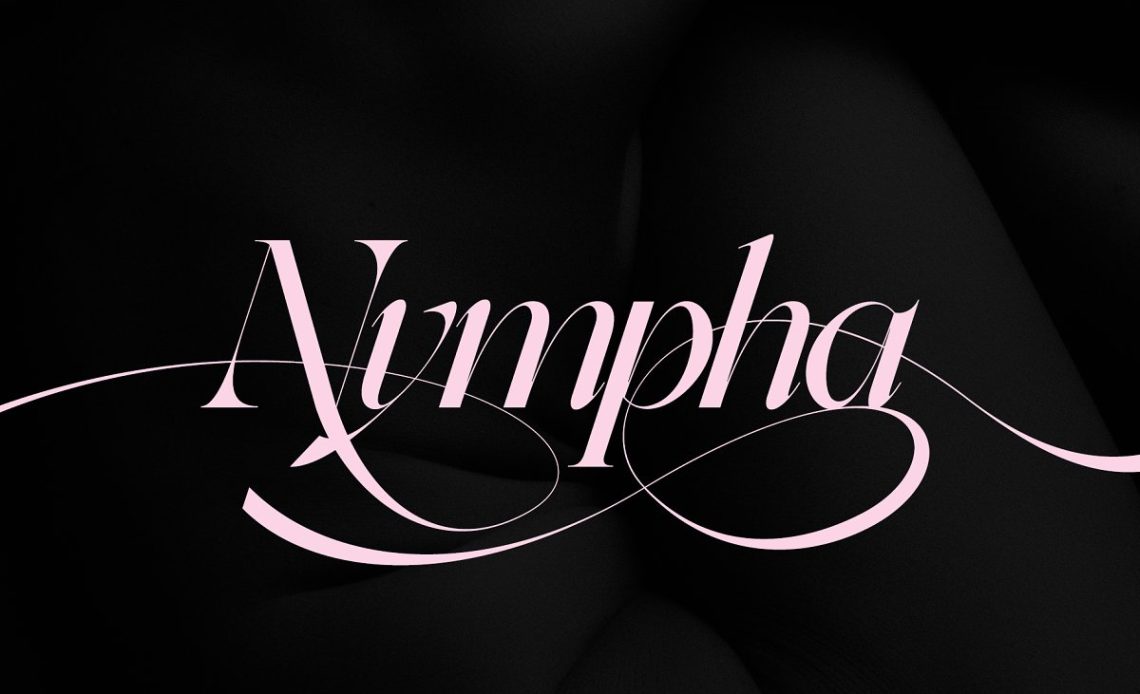
Introducing Nympha Luxurious Font - Reg Italic, a font that will take your typographic compositions to new heights of elegance and glamour. Created by the renowned Lacre Type Foundry, this serif typeface is meticulously crafted to exude femininity, exquisity, and unbridled luxury. Prepare to be captivated by its refined details, opulent swashes, and voluptuous curves.
Nympha embraces its dual nature, offering two distinct yet connected stylistic sets of characters. The first set embodies a contemporary and elegant vibe, while the second set showcases an exquisite and unconventional charm. Combining these two styles unlocks a world of creative possibilities, allowing you to achieve stunning and unexpected results.
With over 800 characters at your fingertips, Nympha empowers you to create compositions that truly stand out. Each character boasts up to 10 stylistic variations, offering endless opportunities for customization. Let your imagination run wild as you explore the vast collection of ligatures, swashes, and stylistic alternates, ensuring that every word becomes a work of art.
But Nympha doesn't stop there. It also provides comprehensive European language support, making it a versatile choice for multilingual projects. Additionally, the inclusion of old numerals adds a touch of nostalgia and timeless elegance to your designs.
Unleash the allure of Nympha Luxurious Font - Reg Italic and elevate your typography to new heights of sophistication. Let your designs speak volumes with this captivating and emotionally charged font.